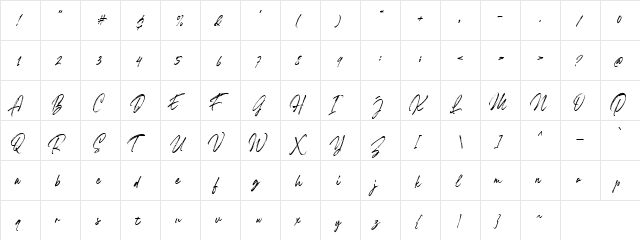
Wildstreet Regular
| Foundry | Runsell Studio |
| Designer | Satia Hayu Prabowo |
Design Context for Wildstreet Typeface
Wildstreet is a composed and adaptable typeface that performs quietly and consistently across a wide range of design contexts.